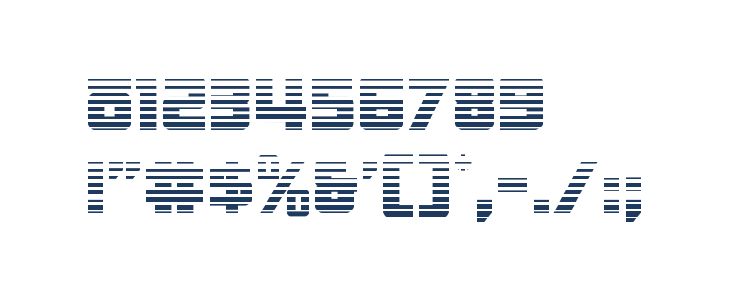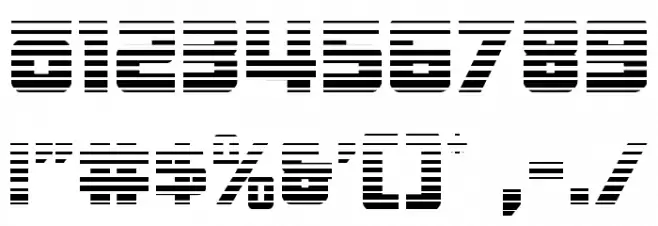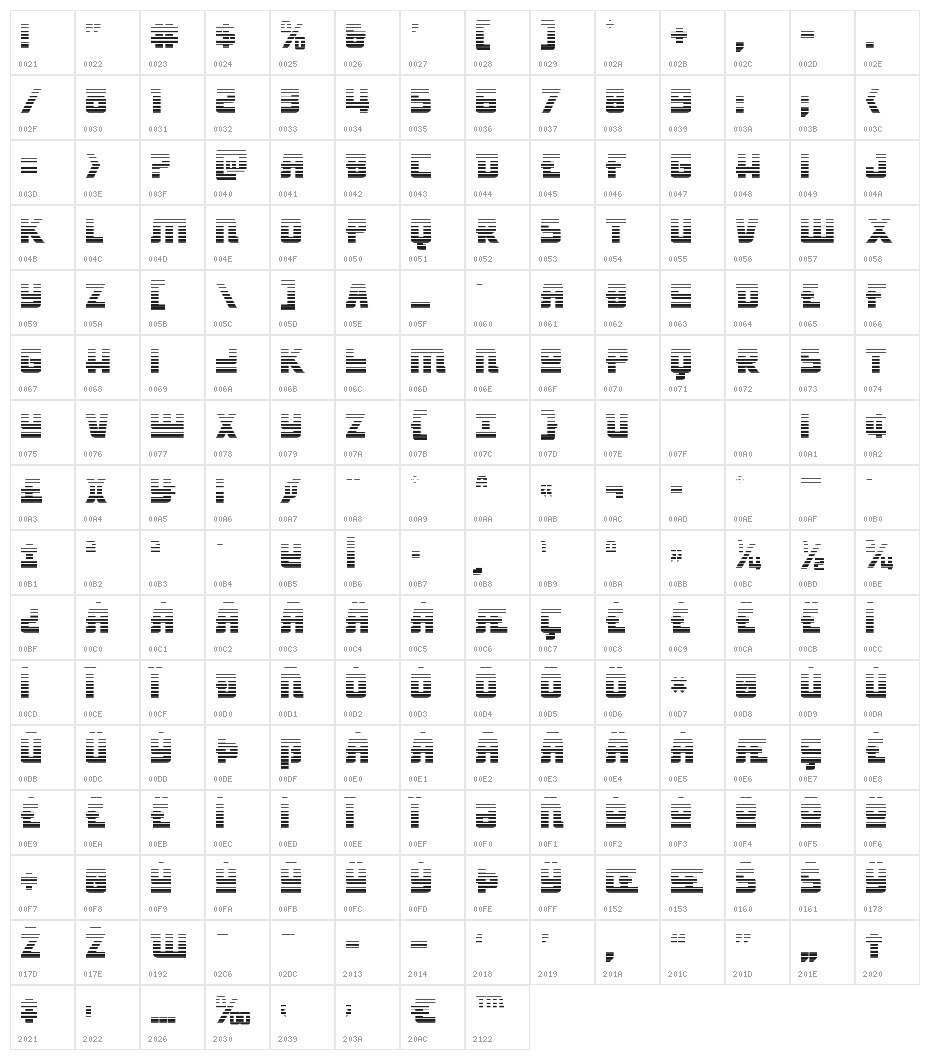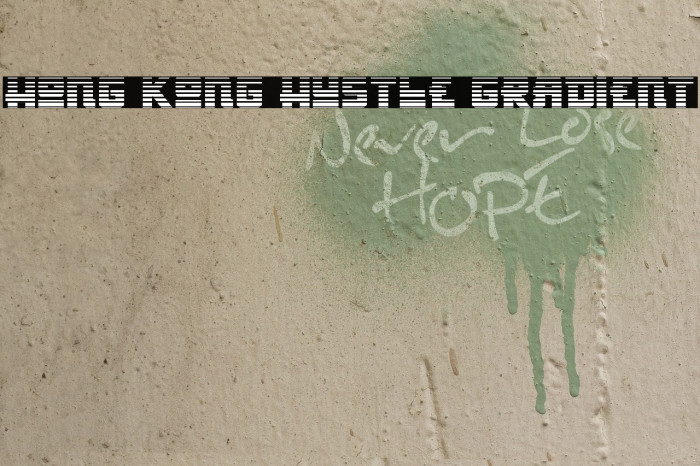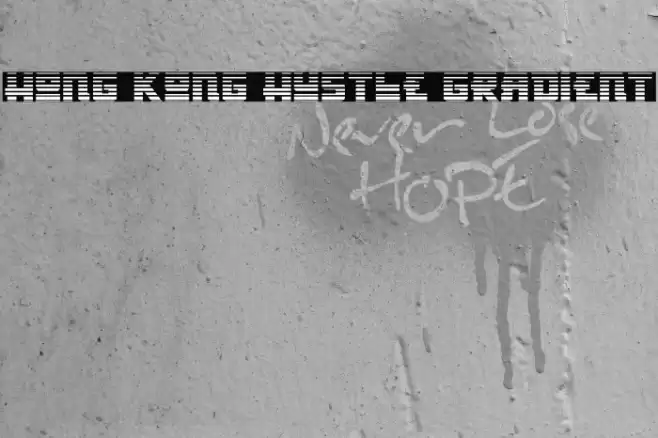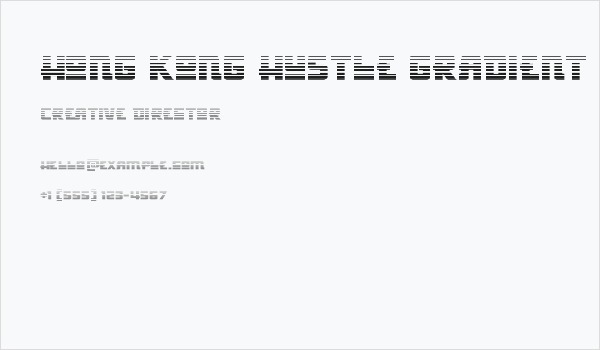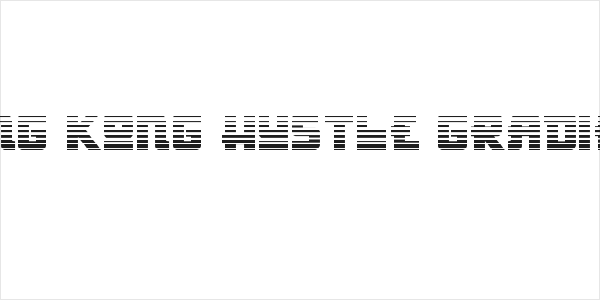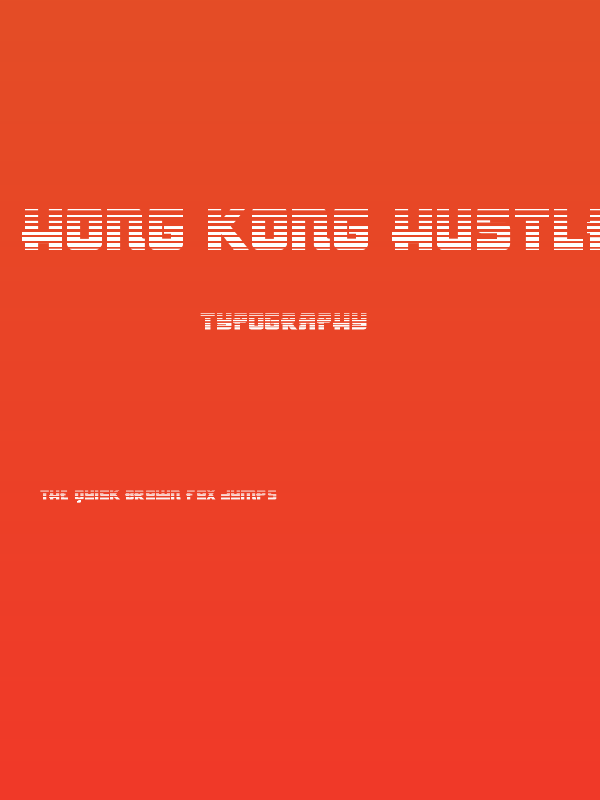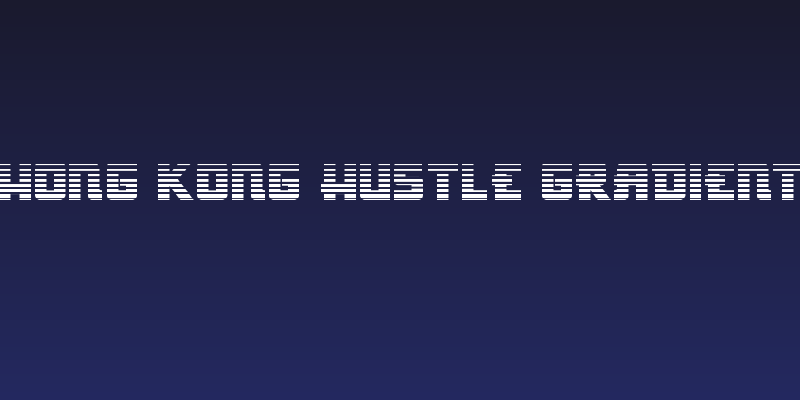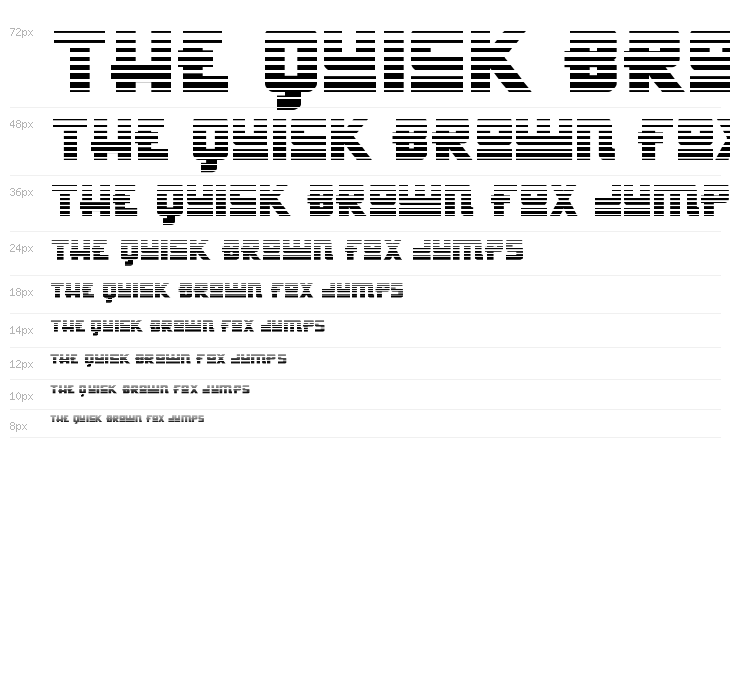
Hong Kong Hustle Gradient Font
Hong Kong Hustle Gradient Description
This font features a bold, futuristic design with a distinct horizontal line pattern running through each character. The uppercase and lowercase letters maintain a consistent geometric structure, creating a sense of movement and energy. The numbers and special characters follow the same design principles, ensuring uniformity across all elements. The font's unique style makes it stand out, ideal for projects that require a modern and dynamic aesthetic. The horizontal lines add a layered effect, giving the font depth and visual interest.
| Proposed Projects | Ideal for digital media, video game titles, tech branding, and modern posters. |